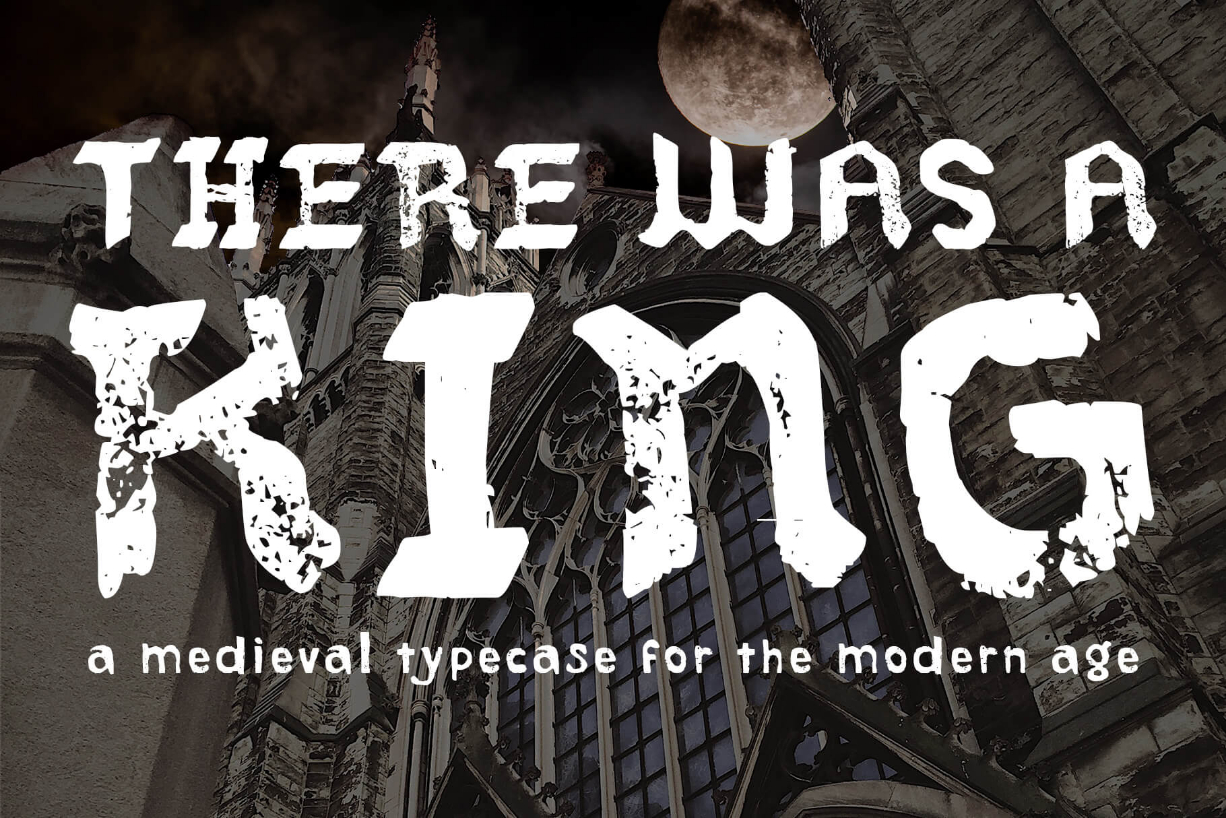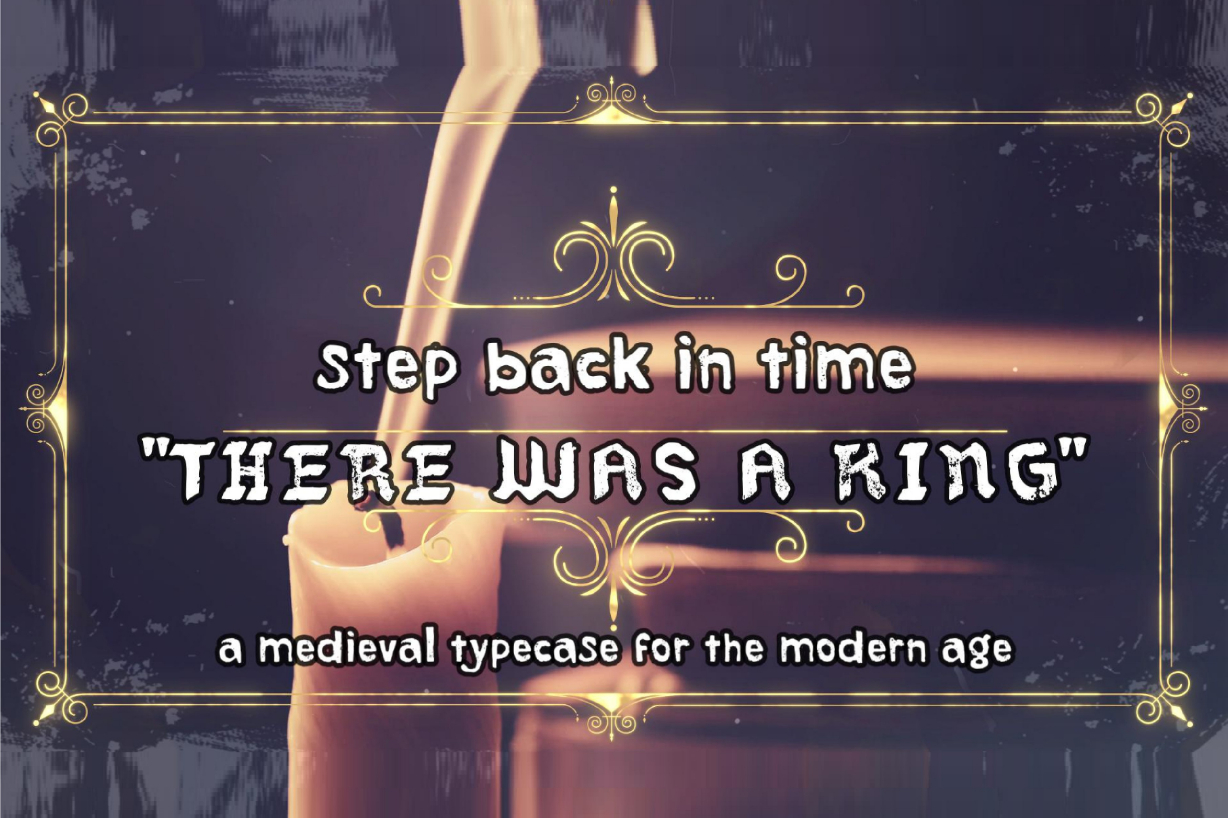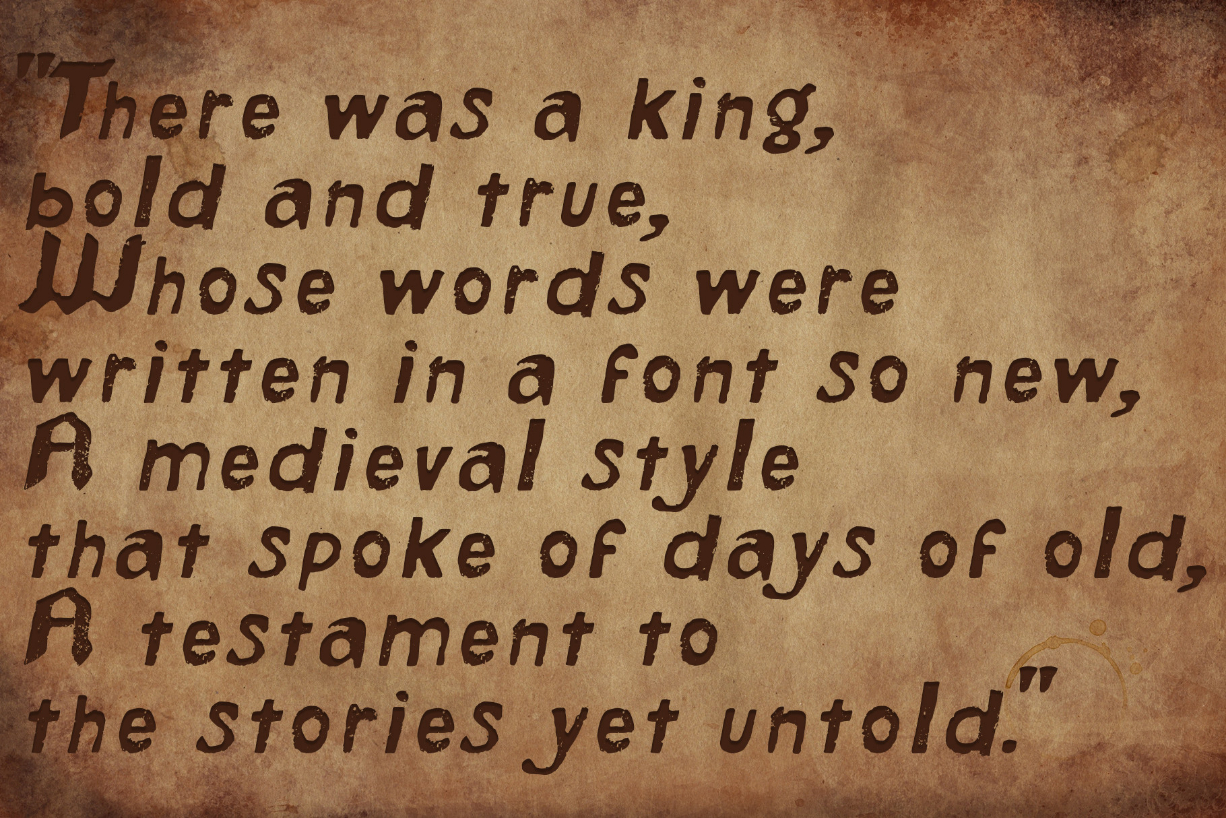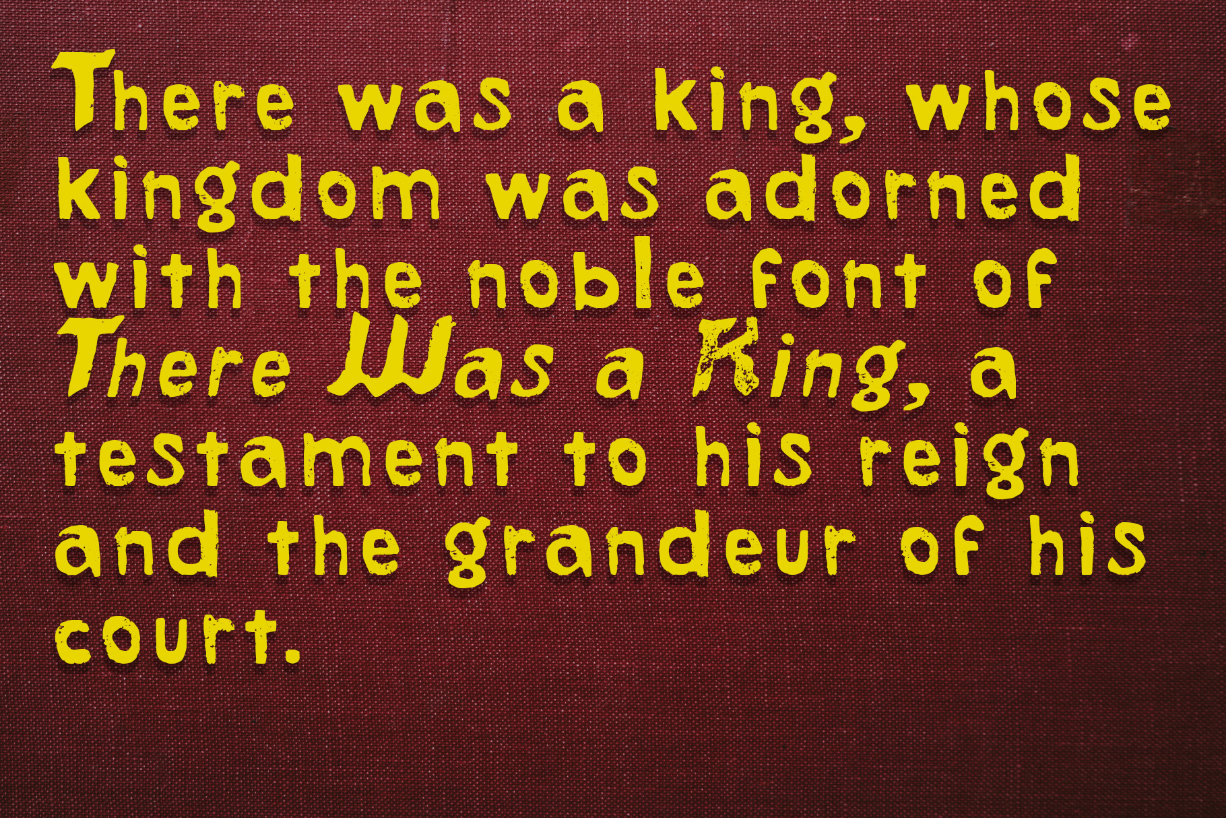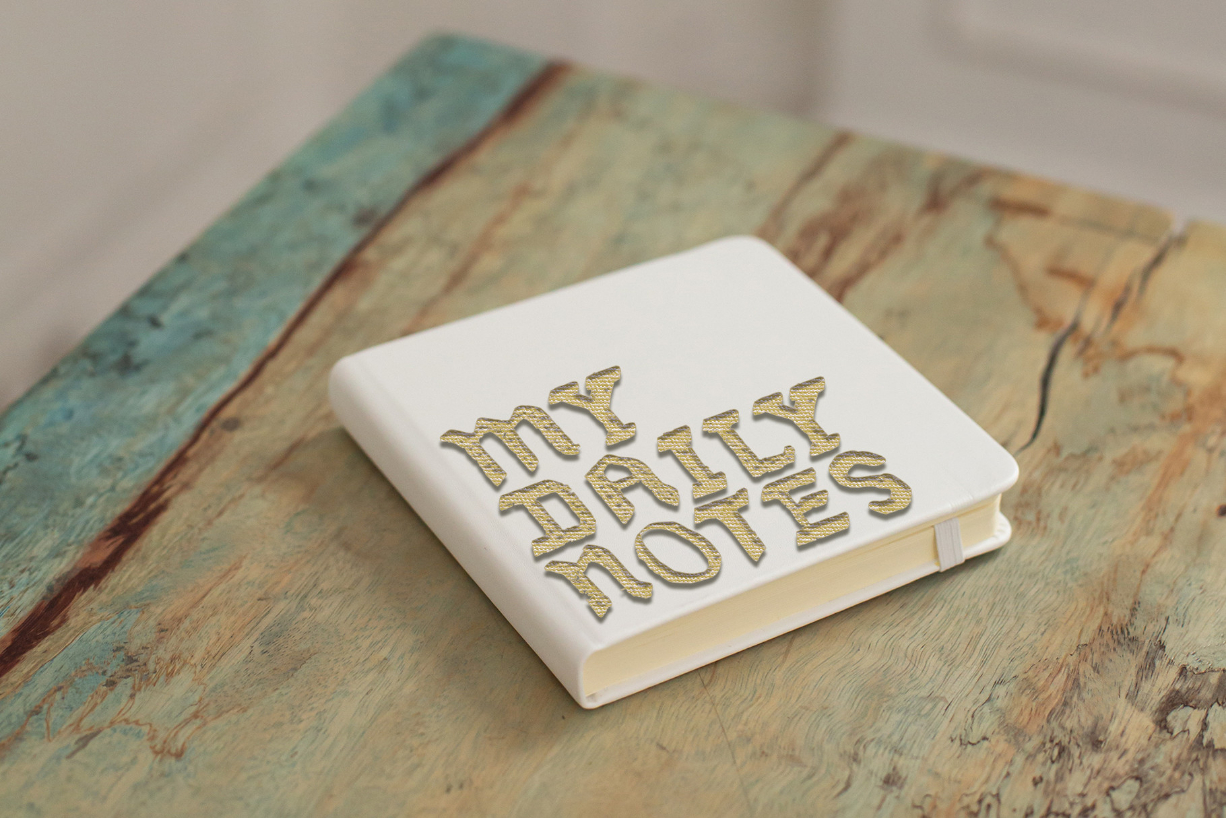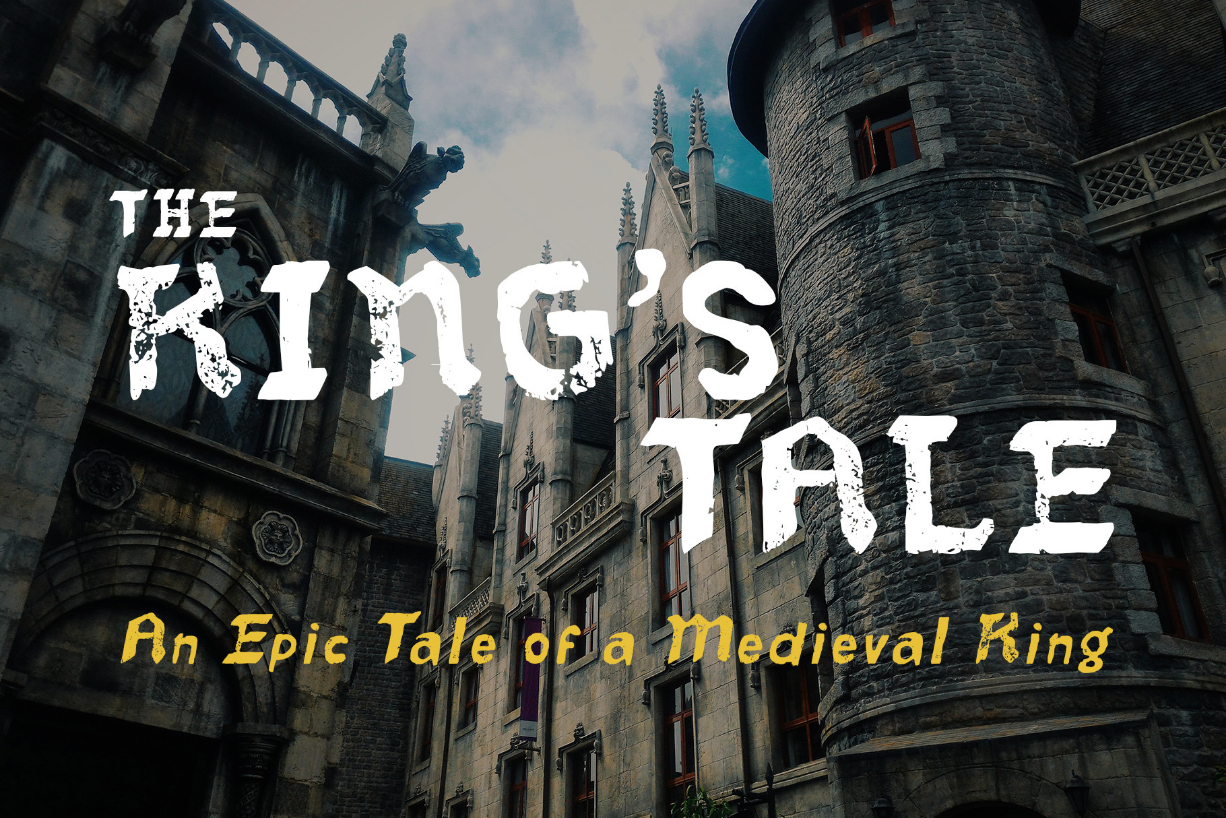
There Was a King Font
About There Was a King Font
Are you tired of using the same boring, generic fonts in your designs? Do you want to add some character and history to your work? Look no further!
Introducing “There Was a King,” the perfect font for adding a touch of vintage charm to any project.
Whether you’re designing a website, a poster, or a logo, “There Was a King” will give your work a unique and authentic look. Its distressed, weathered appearance adds depth and personality to any design.
With its rich history and timeless charm, “There Was a King” is the perfect font for adding a touch of medieval charm to any project. Download today!